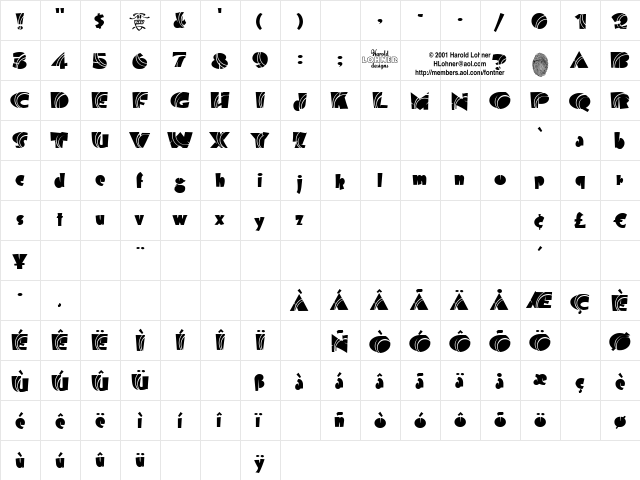
Milky Way Two
| Style | Two |
Design Context for Milky Way Typeface
Milky Way is a composed and adaptable typeface that performs quietly and consistently across a wide range of design contexts.